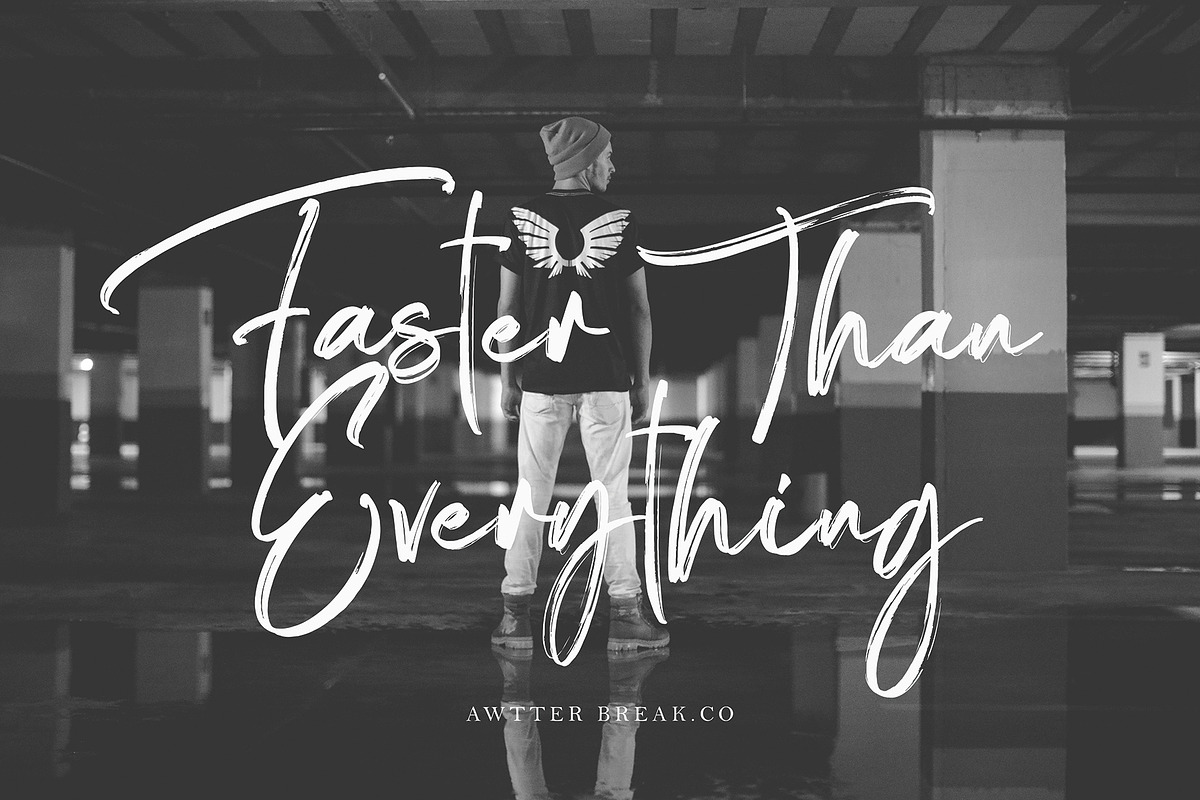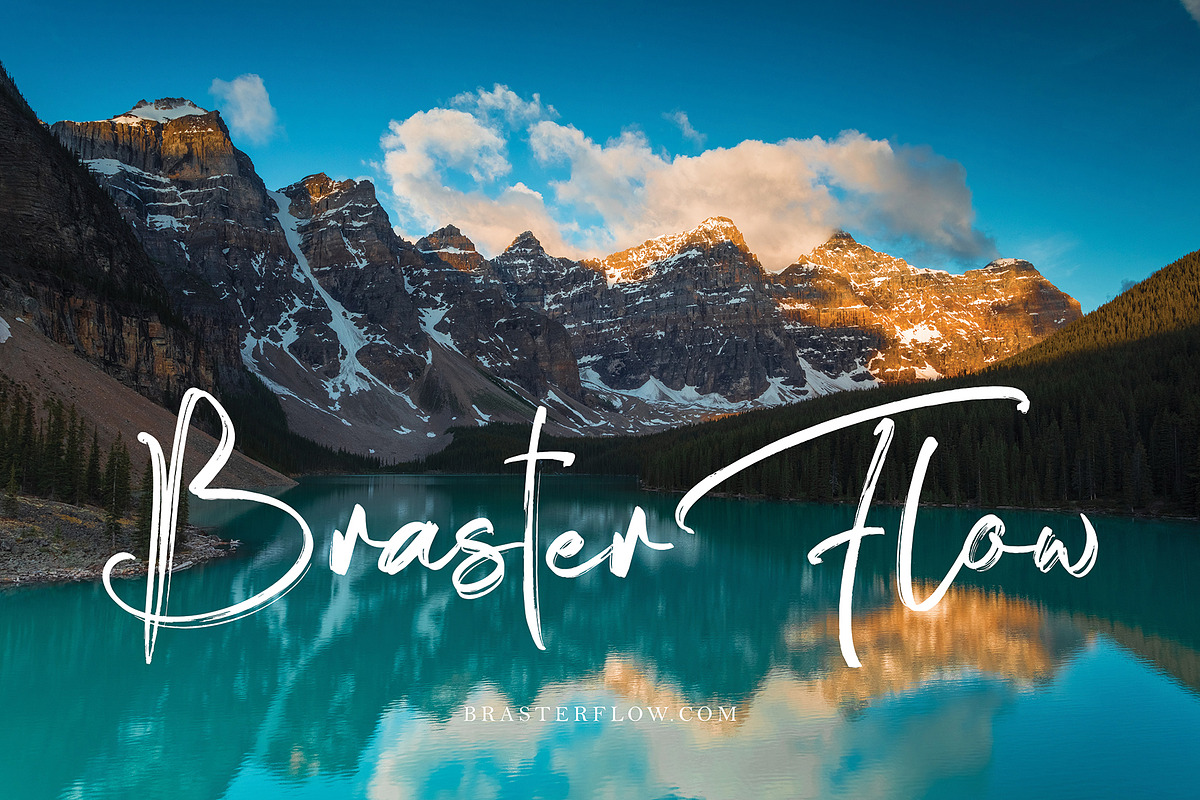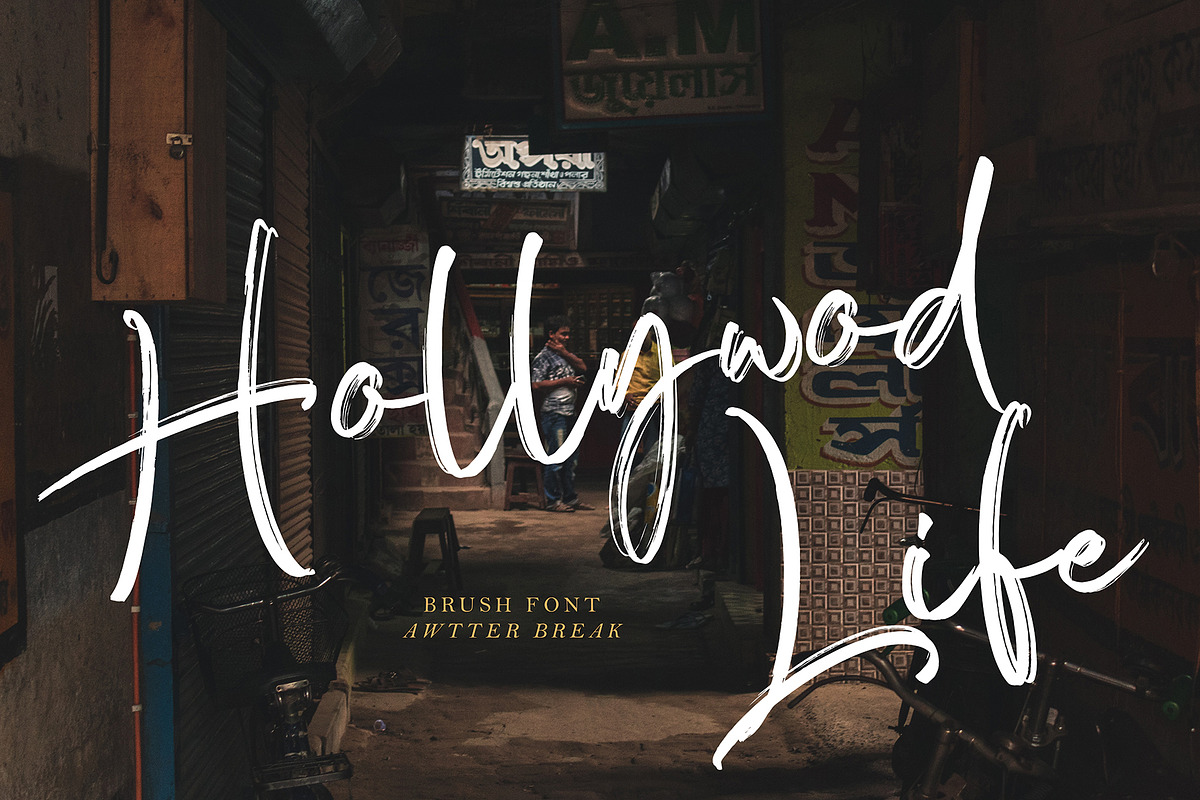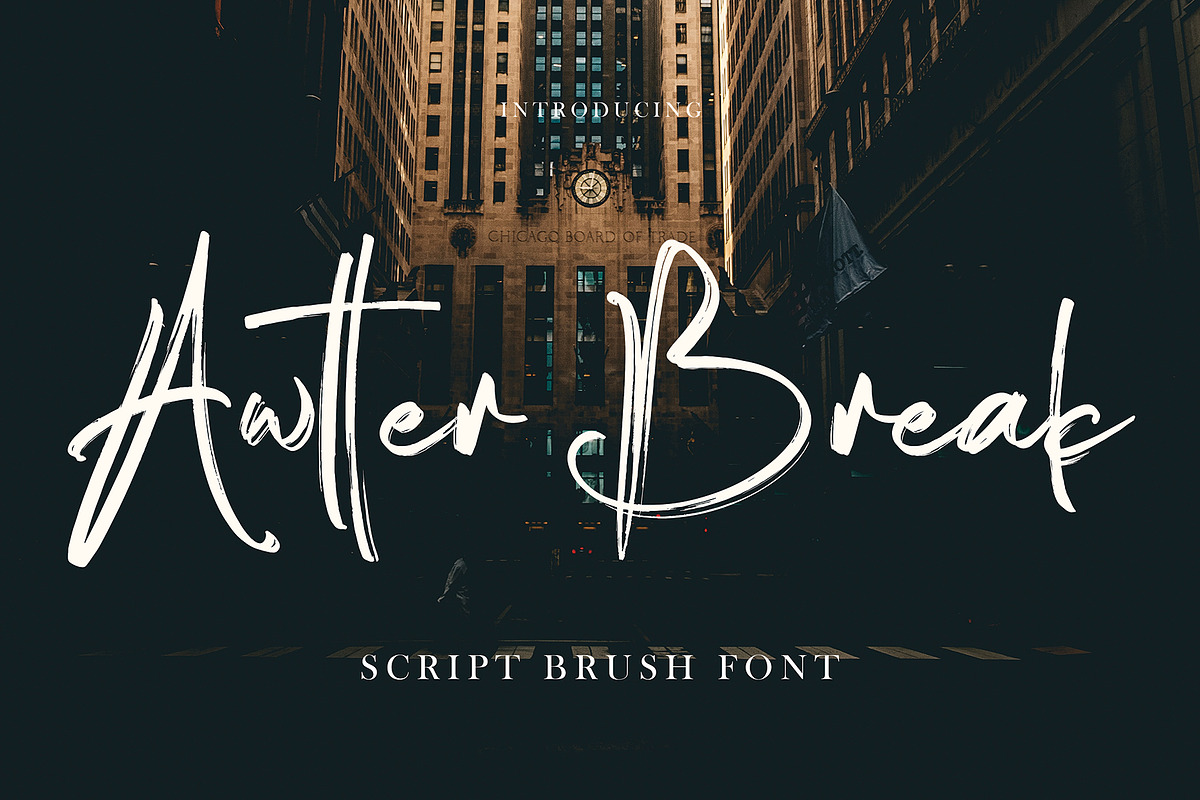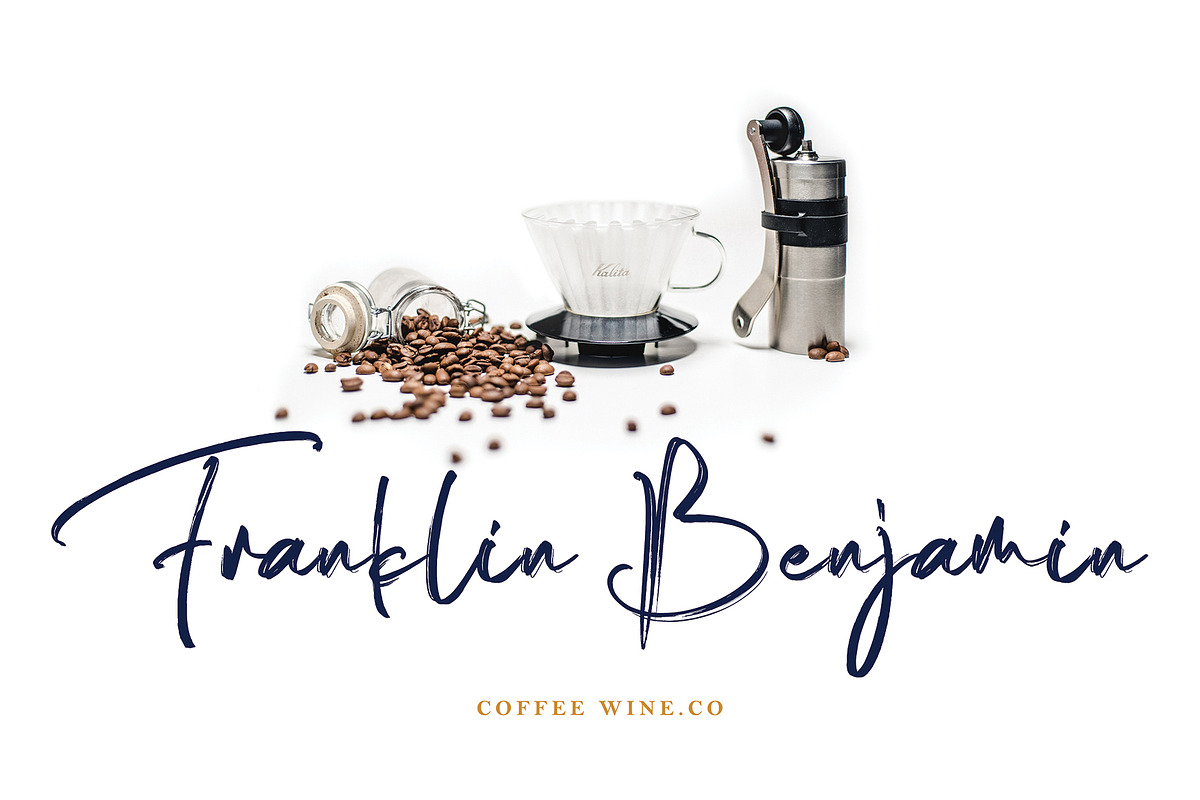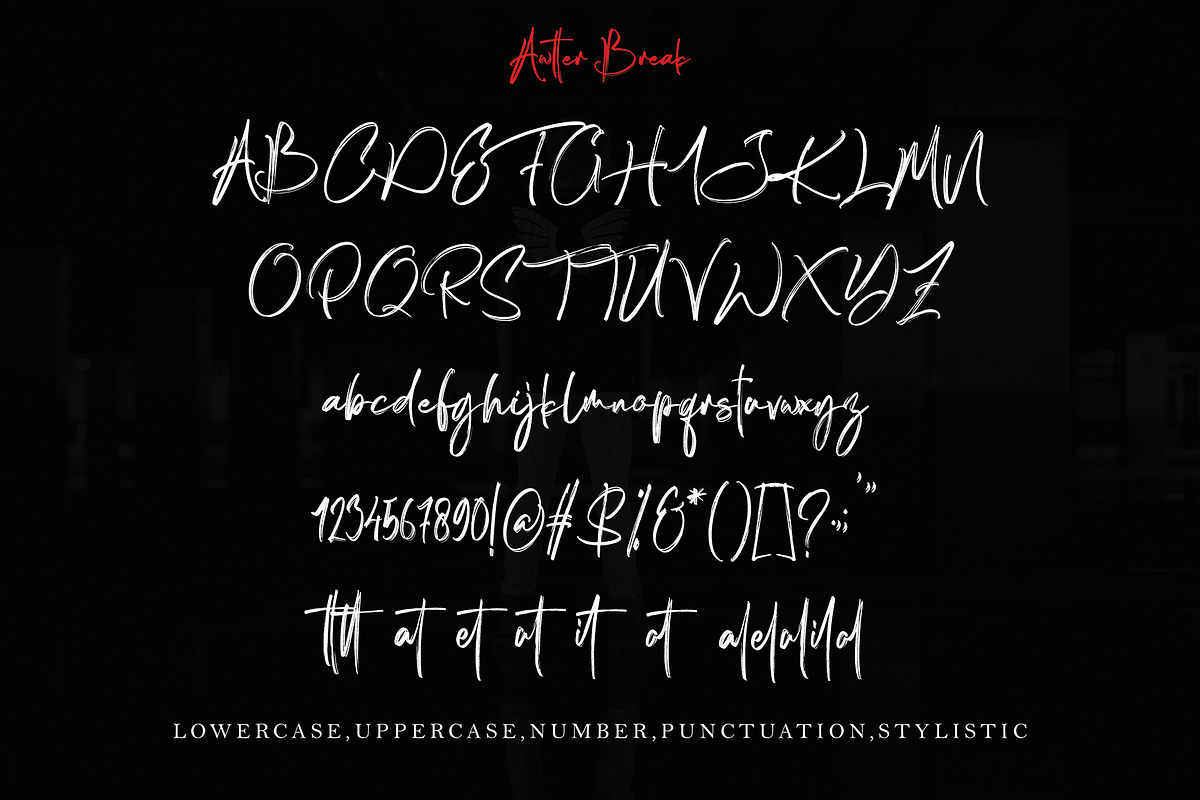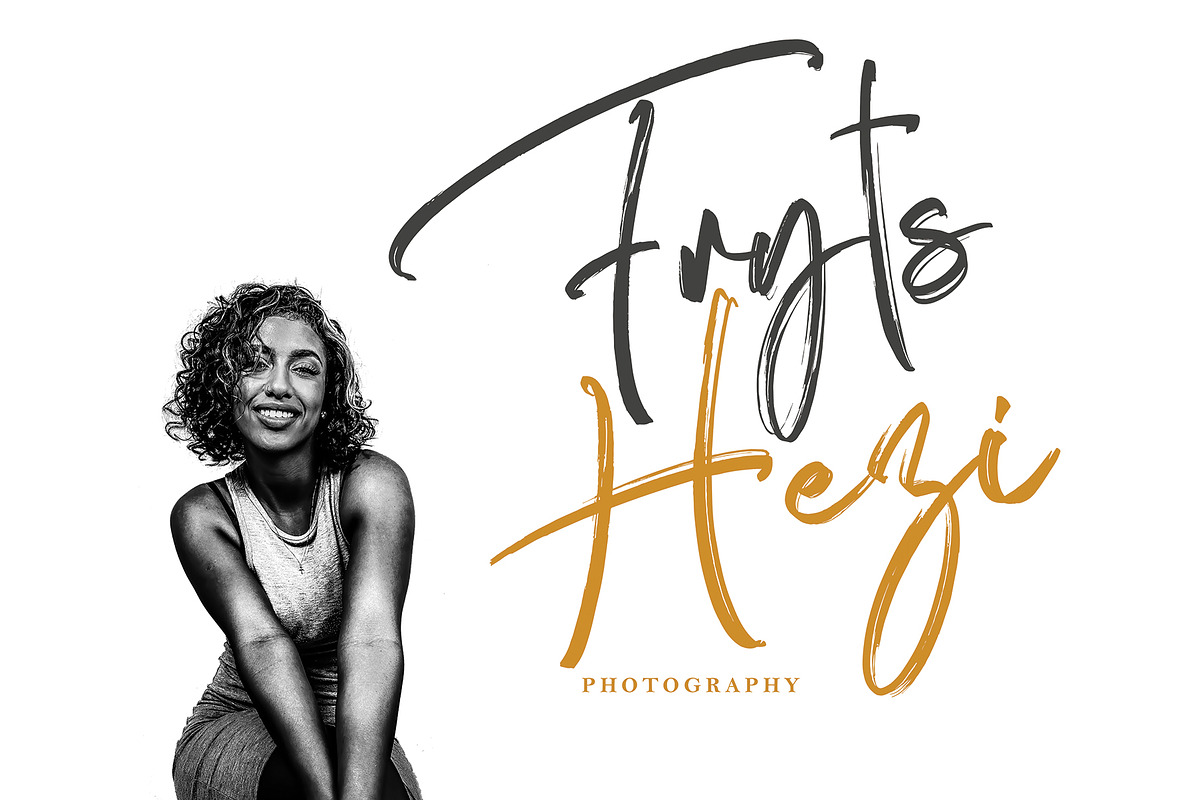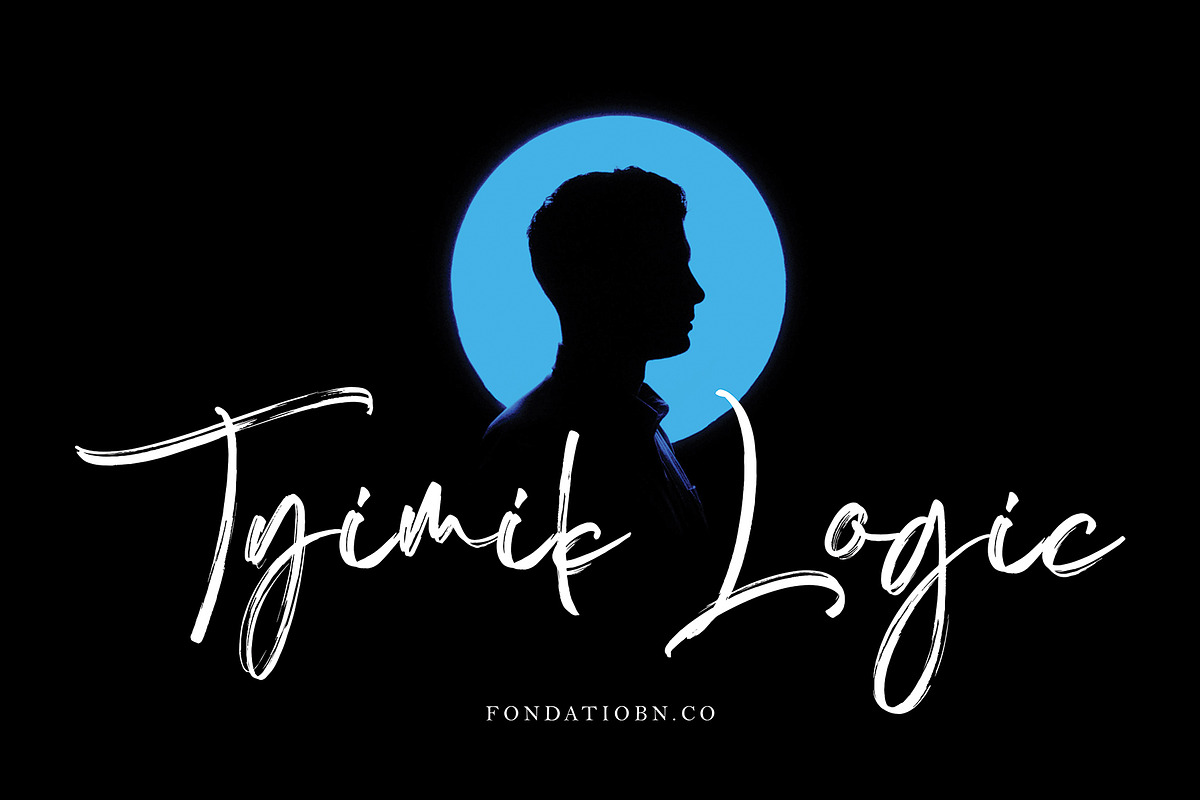
Awtter Break
Awtter Break font with new style, this font will perfect for many different project ex: quotes, logo, blog header, poster, banding, fashion, apparel, letter, invitation, stationery, etc...